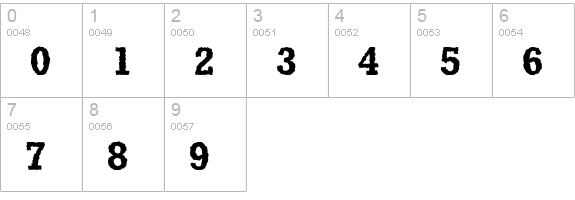
Grunge Gravel Bold is a strong, high-contrast variant in the Grunge typeface family \xE2\x80\x94 well suited to headlines, attention-grabbing titles, and strong calls-to-action.
Introducing Grunge Gravel Bold font - a rugged and edgy typeface that exudes a raw and gritty vibe. This font is perfect for creating designs that demand a bold and impactful presence. With its distressed and weathered appearance, Grunge Gravel Bold adds a touch of rebellious charm to any project. The best part? Grunge Gravel Bold font is absolutely free to download at FontsMarket.com! Whether you're working on posters, album covers, or branding projects, this font will give your designs a unique and authentic look. Embrace the raw energy of Grunge Gravel Bold and make a statement with your typography. Download it now and let your creativity run wild!